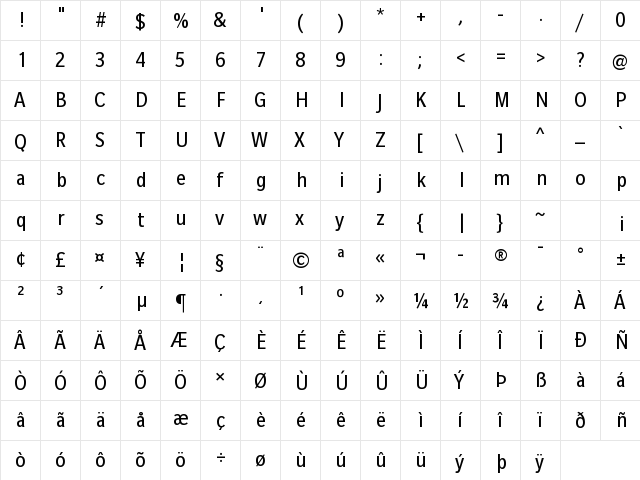
Slate Pro Condensed Regular
| Designer | Rod McDonald/Carl Crossgrove |
Design Context for Slate Pro Condensed Typeface
Slate Pro Condensed takes a measured approach to typography — its balanced proportions and neutral character make it a reliable workhorse for both digital and print work. The condensed width makes it efficient for tight spaces without sacrificing legibility.